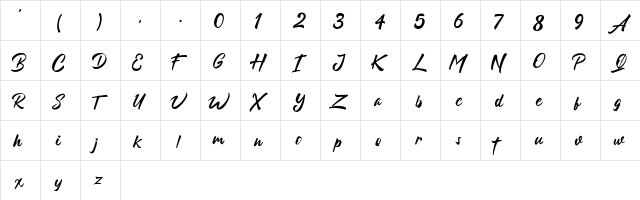
Backabon Regular
| Designer | hustletter |
Design Context for Backabon Typeface
Backabon takes a measured approach to typography — its balanced proportions and neutral character make it a reliable workhorse for both digital and print work.